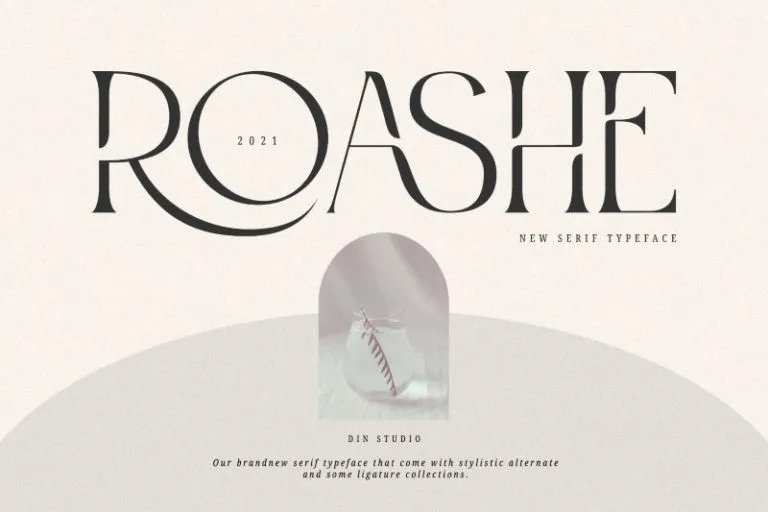
Roashe Font
Roashe is a chic and distinct typeface font. Made from font designer named Din Studio. Roashe is made to bring out a modern and stylish view of what you make. This font contains all in uppercase characters. Well suited to titles, poster designs, branding, logos, and many more.
Roashe includes Multilingual Support to make your branding reach a global audience. Inspire your audience, clients, or guests with this beautiful, statement font.